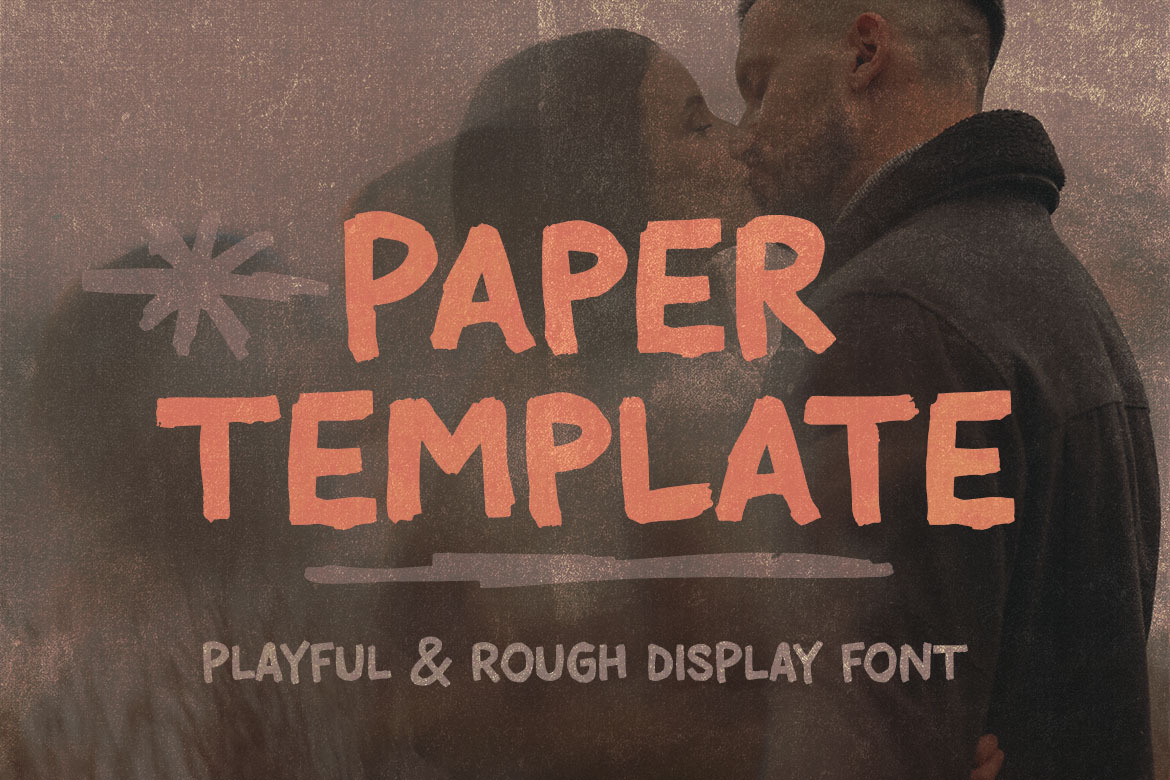
Paper Template Rough Casual Font
Casual, simple, rough, handwritten and bold marker sans serif font for your new projects. With multi language support and casual artistic or street style ;)
- multilingual support
- CAPS & CAPS alternates (small letters) + numbers & special characters
- ligatures & doodle shapes